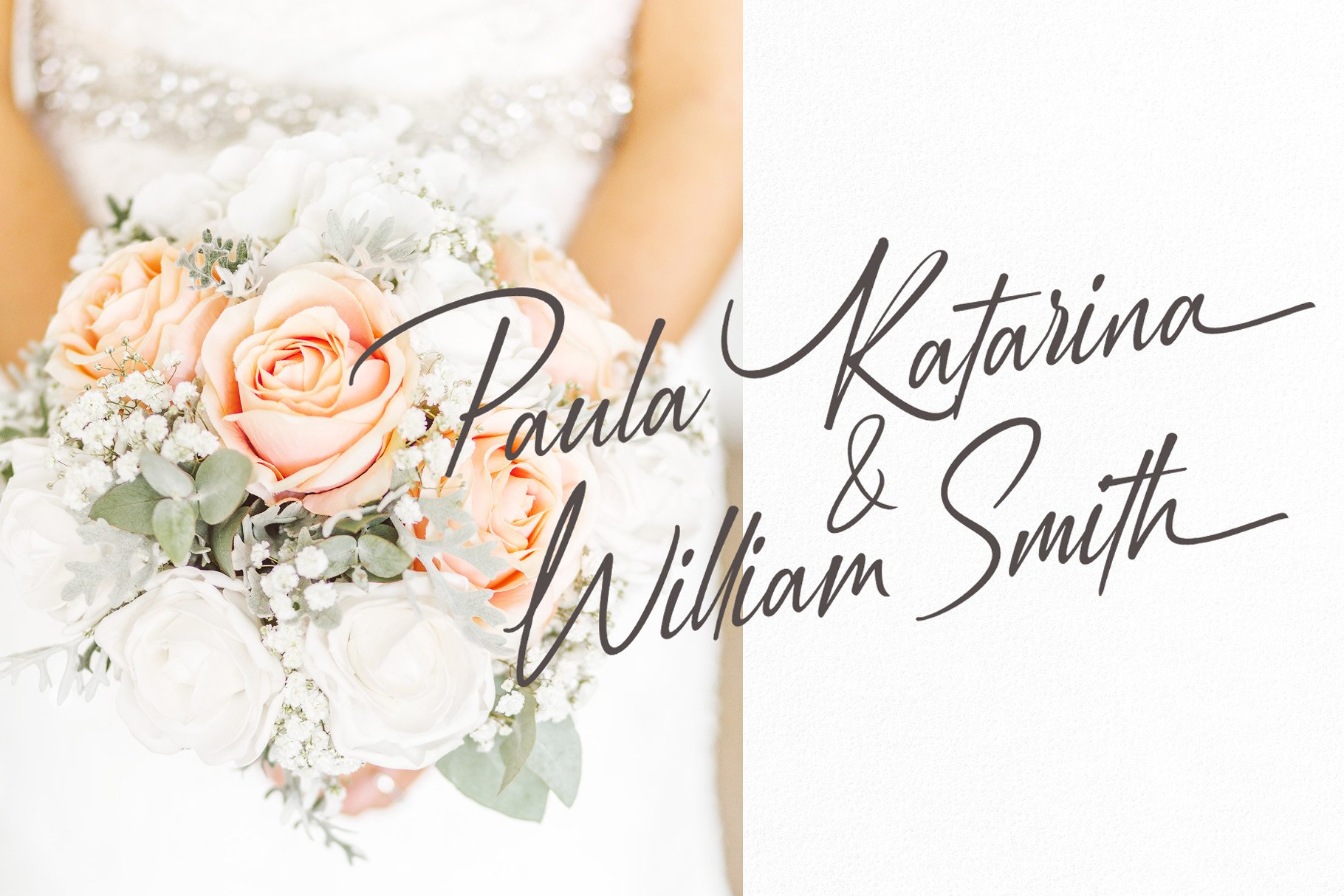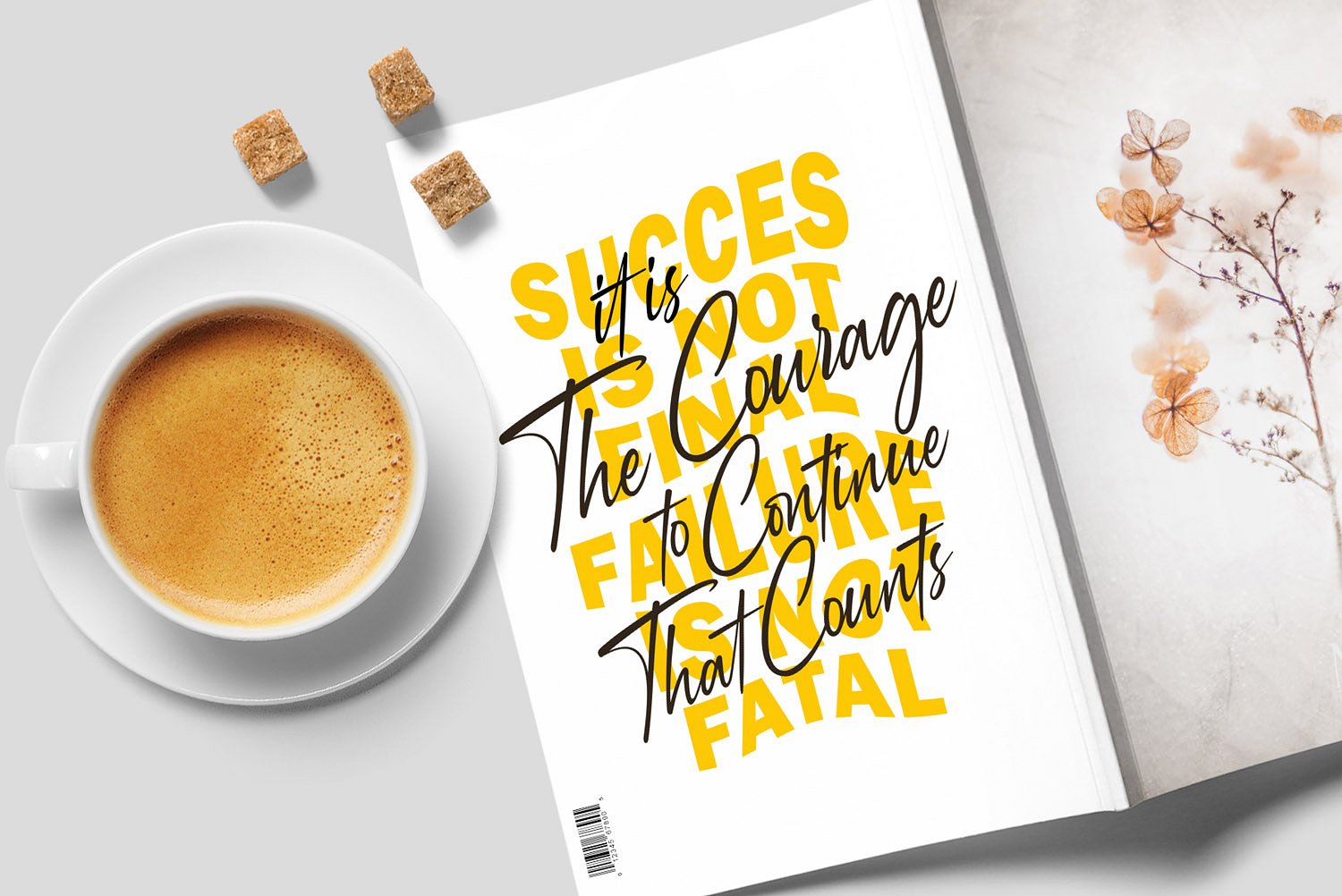
Augustinne Handwritten Font
Augustinne Handwritten Font – Free Demo
This is a signature decorative font with which you can achieve a handwritten-type lettering feeling. This signature style is perfect for your modern graphic design needs. Presenting Augustinne Font. Thank you for looking Augustinne Handwritten Font. Spacious, comfortable, peaceful, a perfect versatile font that you can use. Augustinne is guaranteed to make your text stand out perfect for cards,printed quotes, logos,Signature, product packaging, book cover, invitations, frame writings, headers and whatever your imagination holds.